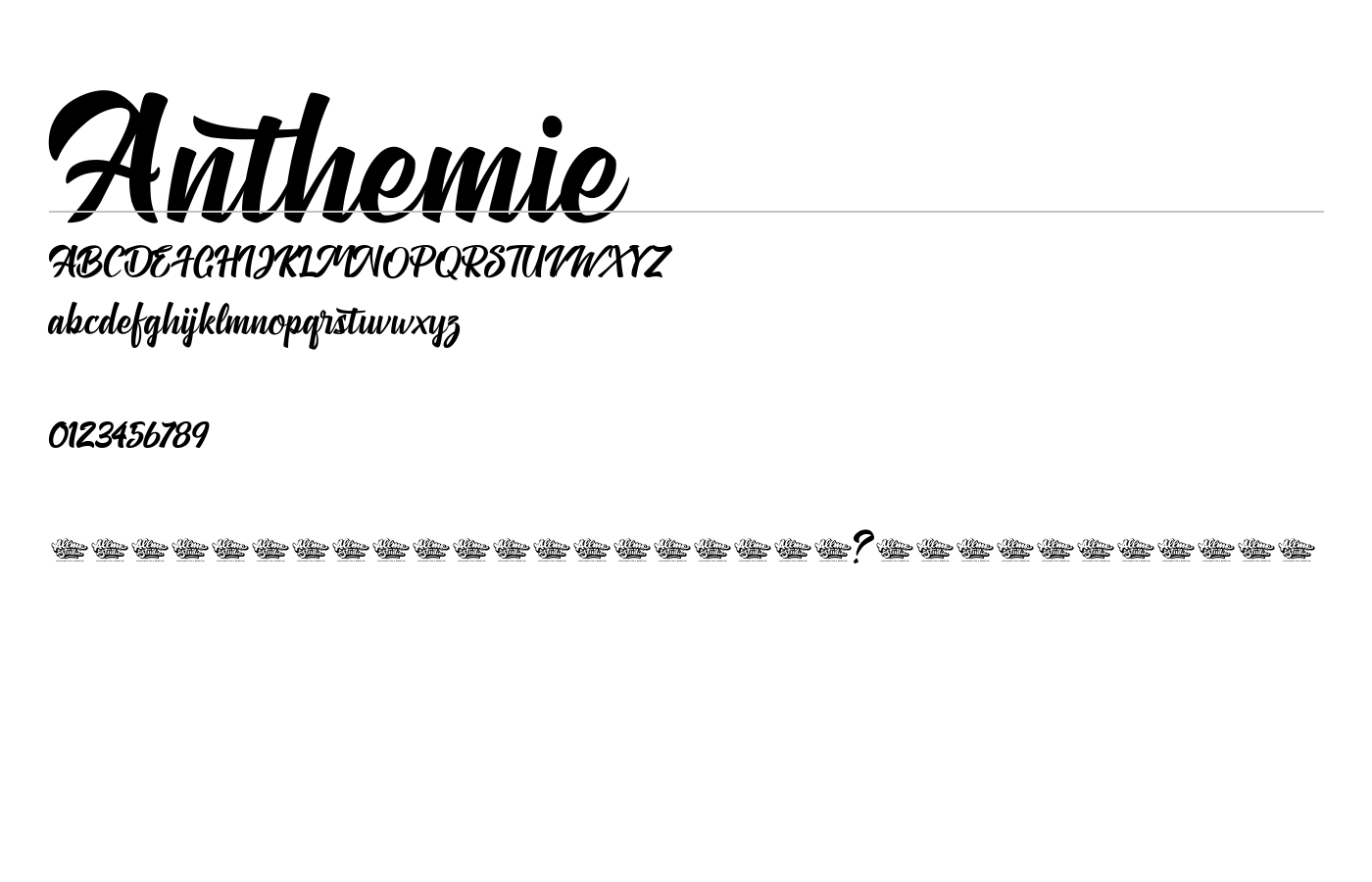
Anthemie is a bold, expressive script font characterized by smooth, flowing strokes and a lively, handwritten feel. It features a moderate contrast in stroke weight and unique letterforms with elegant curves, making it perfect for eye-catching headlines, logos, and branding that seek a friendly yet sophisticated personality. This font works best in creative, fashion, or lifestyle projects where a personal and dynamic touch is desired.
Anthemie Font
About Anthemie Font